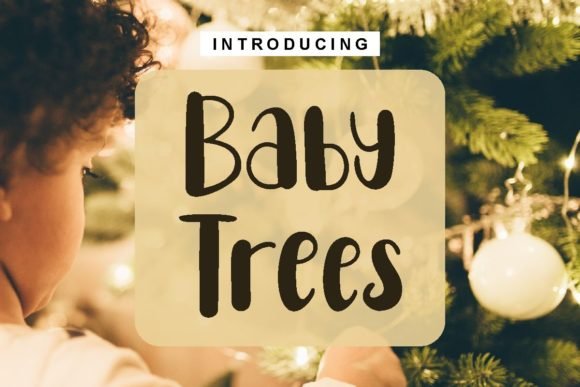
The Birth of a Design Icon: Baby Trees Font
Have you ever stared at a blank page, waiting for inspiration to strike? For designers, those moments of creative block are a thing of the past with the introduction of the Baby Trees Font. This charming handwritten font is more than just a typographical style – it’s a game-changer for anyone looking to add a personal touch to their designs.
Baby Trees Font is a delightful choice for creating eye-catching logos, branding, and quotes that truly stand out. Its unique style and beautiful letterforms make every design come alive, setting it apart from more generic fonts. Whether you’re a seasoned pro or just starting out, this font is a valuable addition to any designer’s toolkit, offering endless possibilities for creativity and self-expression.
Baby Trees Font Key Features
- Unique Characteristics: The font’s distinctive, hand-drawn design and playful aesthetic make it perfect for creative projects, such as children’s books, greeting cards, and advertising materials.
Baby Trees Font Review
I recently had the chance to work with the Baby Trees Font, and I must say, it’s a charming and whimsical font that can add a touch of magic to any design project.
- ✨ The font’s unique and playful feel is perfect for children’s books, nursery decorations, or any project that needs a sense of wonder.
- ✨ The font’s varied line weights and subtle texture add depth and visual interest to designs.
- ✨ The font is highly customizable, allowing designers to adjust the spacing, size, and style to suit their needs.
- ⚠️ The font may not be the best choice for projects that require a more formal or professional tone.
- ⚠️ Some characters may not be as well-designed as others, which can affect the overall consistency of the font.
Overall, I think the Baby Trees Font is a delightful addition to any designer’s toolkit. While it may not be suitable for every project, it’s a great choice for designs that need a touch of whimsy and playfulness.
Tips for Getting the Most Out of Baby Trees Font
Use Baby Trees Font for titles, headings, and body text to create a unique and whimsical design. Experiment with different font sizes, colors, and styles to achieve the desired effect. Pair Baby Trees Font with other fonts to create a visually appealing combination.
Baby Trees Font is ideal for children’s book covers, nursery decor, and educational materials. It’s also suitable for branding and marketing materials that require a playful and creative touch.